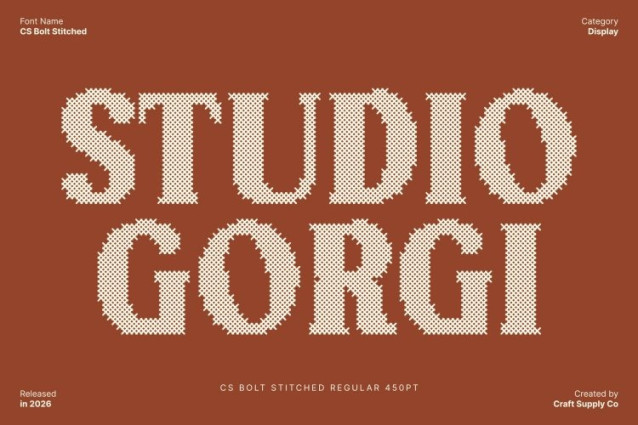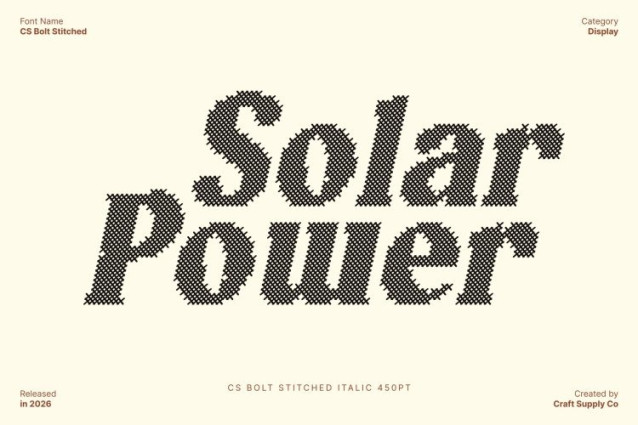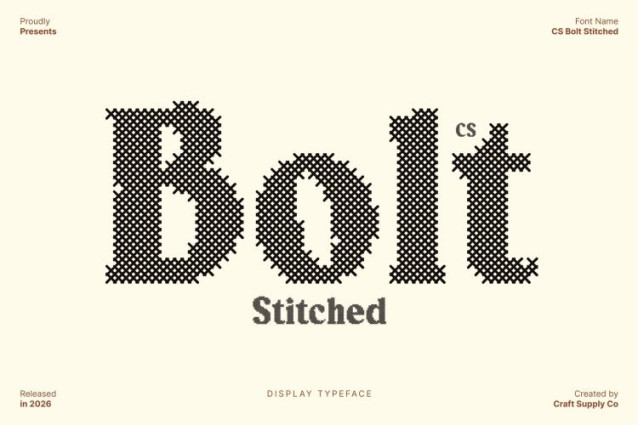
CS Bolt Stitched Font
CS Bolt Stitched Font – This is a bold serif font built to command attention through strong weight and confident structure. Its solid letterforms create an immediate visual impact, delivering a sense of authority and stability. Enhanced with a stitched style inspired by thread sewn or embroidered on fabric, this version introduces a handcrafted texture that softens the bold forms with warmth and distinctive personality.
Strong Forms with Embossed Stitch Texture
The powerful strokes of this font are complemented by a distinctive cross-shaped stitch pattern that creates an embossed, fabric-like texture across each character. This stitched detailing adds depth and tactile richness while bringing a classic, nostalgic, relaxed, and warm impression. The result is a striking balance between bold typographic strength and handcrafted charm.
Strength Balanced with Playful Softness
What makes this font especially distinctive is its harmony between firmness and approachability. The bold strokes communicate confidence and visual dominance, while subtle curves and rounded details introduce a friendly, expressive quality. Combined with the stitched texture, the font feels strong yet welcoming powerful without appearing rigid.
Perfect for Headlines and Impactful Branding
This is ideal for headlines, posters, branding, packaging, and promotional materials that need to capture attention instantly. Its fusion of modern bold serif structure and stitched detailing makes it perfect for creative identities, statement typography, and contemporary visual campaigns that require both strength and personality.